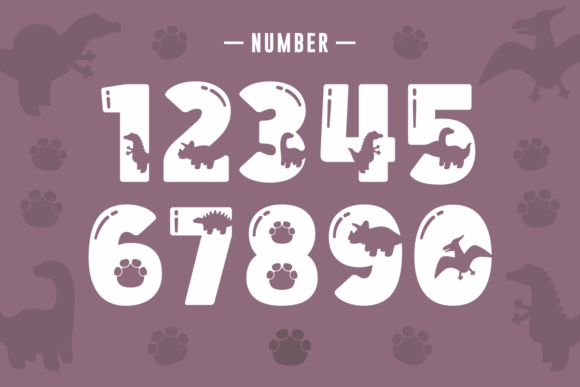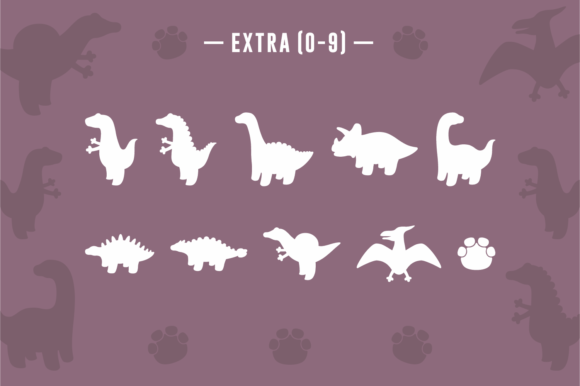
Dino Zone is a playful decorative font with a theme inspired directly by dinosaurs’ designs. You can see dino paws and different dino species inside the characters. Grab this kid font and use it for children-designed themes, birthday cards, posters, stickers, wall art, kids’ rooms, and other childish prints.